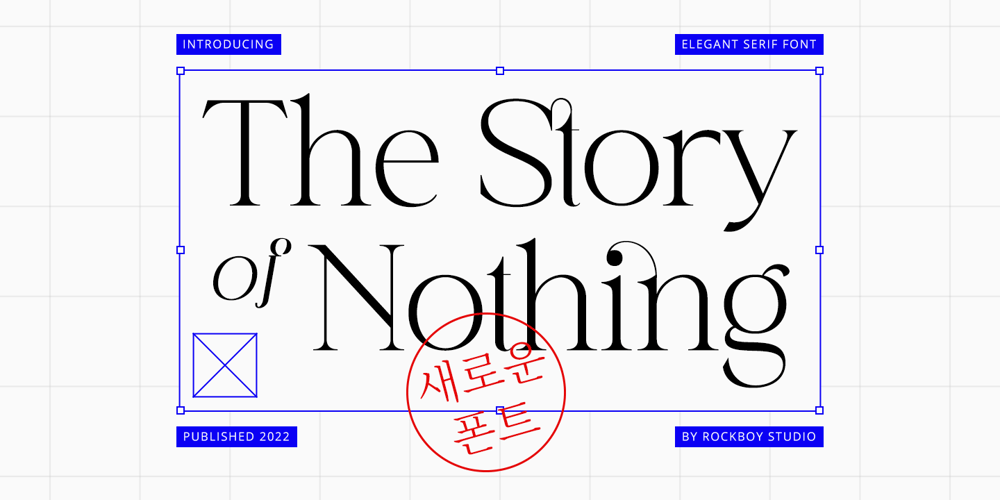
The Story of Nothing Font Family was designed by Hayinah and published by Rockboys Studio. The Story of Nothing contains 1 styles and family package options. The Story of Nothing is a distinct, elegant, and authentic serif font. Masterfully designed to become a true favorite, this font has the potential to bring each of your creative ideas to the highest level!